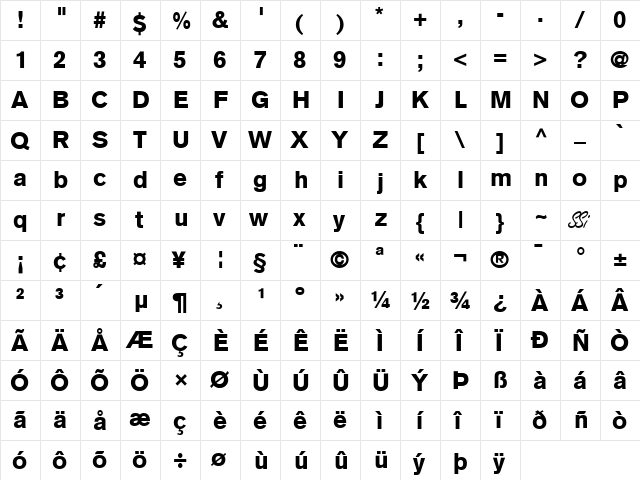
Express Black SSi Black
Design Context for Express Black SSi Typeface
Express Black SSi offers clean, dependable letterforms without strong stylistic allegiance, making it a practical choice for designers who need flexibility.
Pro Tip: Pair Express Black SSi with a font of contrasting weight or personality to build a more expressive typographic hierarchy.